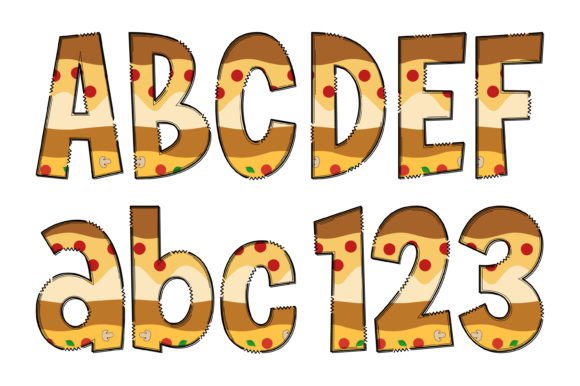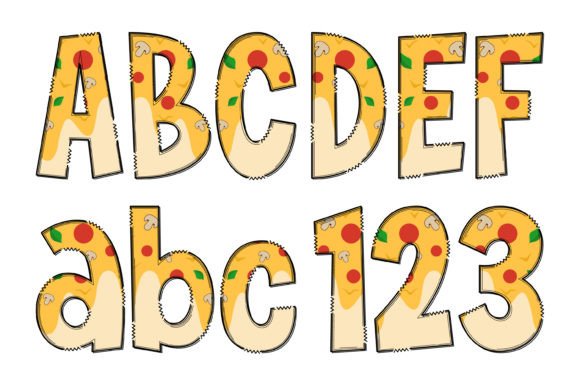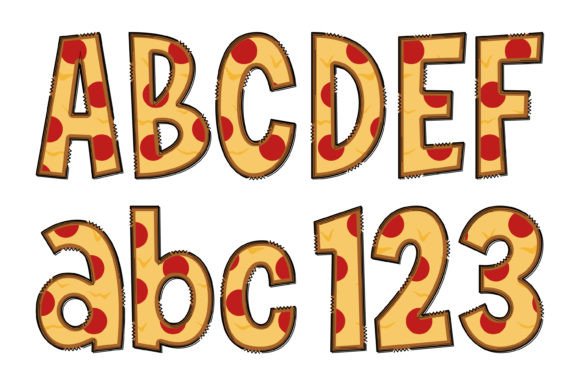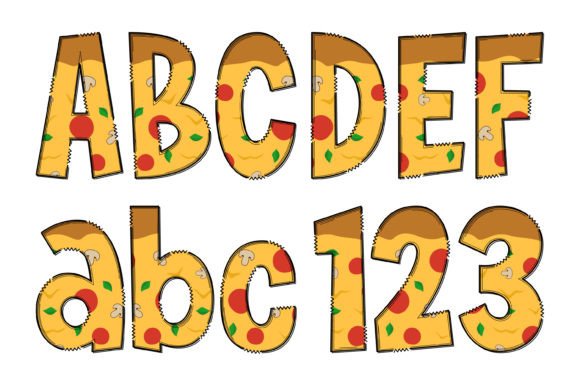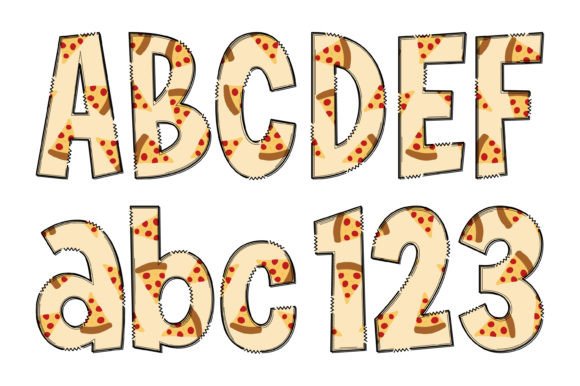
Best Pizza Collection Font: A Deliciously Playful Addition to Your Designs
Are you a designer or crafter looking for a font that can add a playful touch to your creations? Look no further than the Best Pizza Collection Font! This delightful collection of pizza-themed color fonts is perfect for designs that aim to convey a fun and artistic feel. From children’s books to posters, invitations, and greeting cards, Best Pizza is the ideal choice for anyone seeking to add a dash of whimsy to their work.
The Perfect Font for Children’s Books
Children’s books often rely on fonts that are not only visually appealing but also easy to read. The Best Pizza Collection Font fits the bill perfectly. Its whimsical and colorful design creates an engaging reading experience for young audiences, making it an excellent choice for authors, illustrators, and designers of children’s literature. The font’s playful feel helps to capture the imagination of young readers, drawing them into the story and making the experience even more enjoyable.
A Versatile Font for Various Design Applications
The Best Pizza Collection Font is not limited to children’s books; it’s a versatile font that can be used in a wide range of design applications. Whether you’re creating posters, invitations, greeting cards, or any other type of visual material, this font is sure to add a touch of playfulness and creativity. Its artistic feel makes it perfect for designs that require a bit of flair, such as:
- Posters and flyers for events, promotions, or announcements
- Invitations for parties, weddings, or baby showers
- Greeting cards for birthdays, holidays, or special occasions
- Children’s party decorations, such as banners and garlands
Key Features of the Best Pizza Collection Font
So, what makes the Best Pizza Collection Font so special? Here are some of its key features:
- Colorful design: The font features a range of bright, vibrant colors that add a playful touch to any design
- Whimsical feel: The font’s unique design creates a sense of fun and playfulness, perfect for designs that aim to engage young audiences
- Easy to read: Despite its playful design, the font remains easy to read, making it suitable for use in a variety of applications
- Versatile: The font can be used in a range of design applications, from children’s books to posters and invitations
How to Use the Best Pizza Collection Font in Your Designs
Using the Best Pizza Collection Font in your designs is easy! Here are a few tips to get you started:
- Pair with complementary fonts: Combine the Best Pizza Collection Font with other fonts that complement its playful feel, such as sans-serif fonts or script fonts
- Experiment with colors: Take advantage of the font’s colorful design by experimenting with different color combinations and schemes
- Add graphics and illustrations: The Best Pizza Collection Font pairs perfectly with graphics and illustrations, so don’t be afraid to add them to your designs
In conclusion, the Best Pizza Collection Font is a deliciously playful addition to any design. Its whimsical and colorful design makes it perfect for children’s books, posters, invitations, and greeting cards. With its versatility, ease of use, and range of features, this font is sure to become a favorite among designers and crafters. So why not give it a try and add a dash of playfulness to your designs?